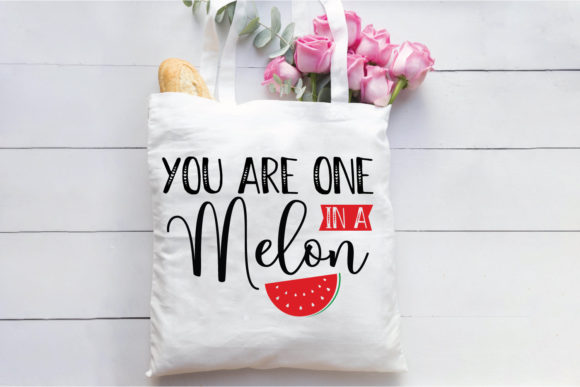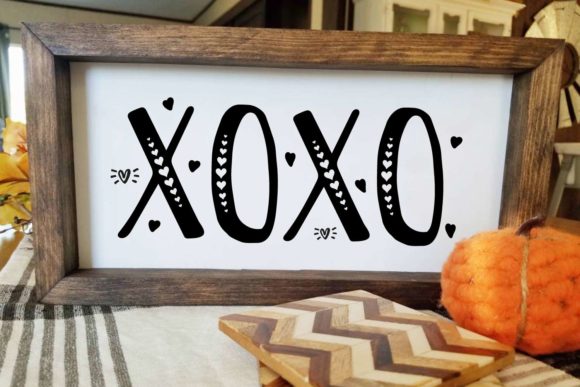
Hugs & Kisses Font
db-ku.com - Script & Handwritten -- The Hugs & Kisses is a cute and fun handwritten font for Valentine’s Day. It only includes uppercase’s with fun heart elements.